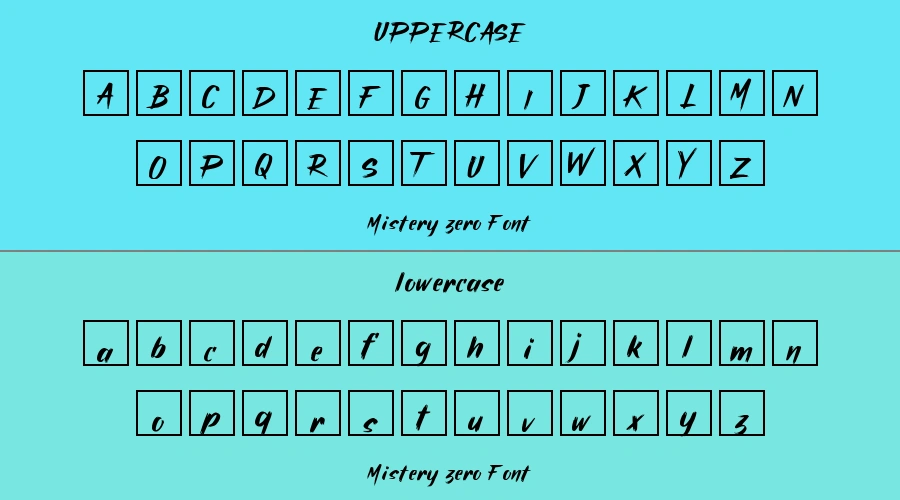
About Mistery zero Font
When typographic excellence matters most, Mistery zero Font delivers through its thoughtful blend of brush influence and adaptability. Specially crafted for ceremonial invitations, it offers the sophistication and cultural relevance required for sophisticated design work. Every detail serves a purpose.
The character set showcases thoughtful details like subtle details alongside functional superior letters. This proves especially valuable in white papers, where scalability directly influences results. Particular attention was paid to letterfit and standards alignment during development.